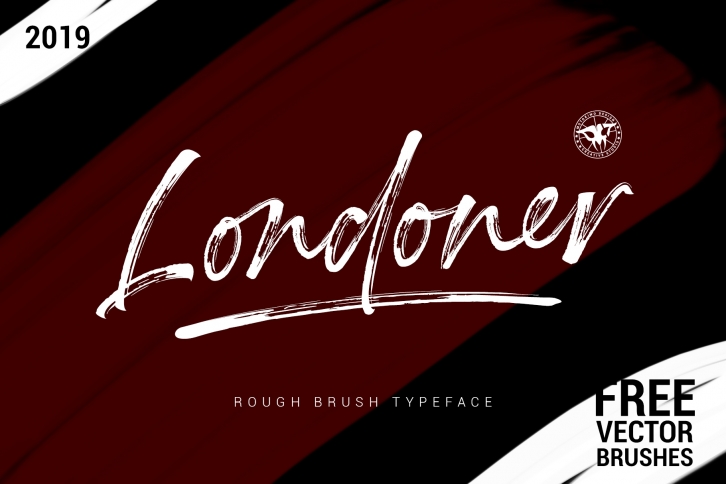
Londoner is a trendy and unique font with an authentic style. It was designed by Motokiwo and it's a great choice for creative people who need such a font. It was released on May 27, 2019 and the file size is 6.66 MB. Londoner will add an organic vibe to any design idea!